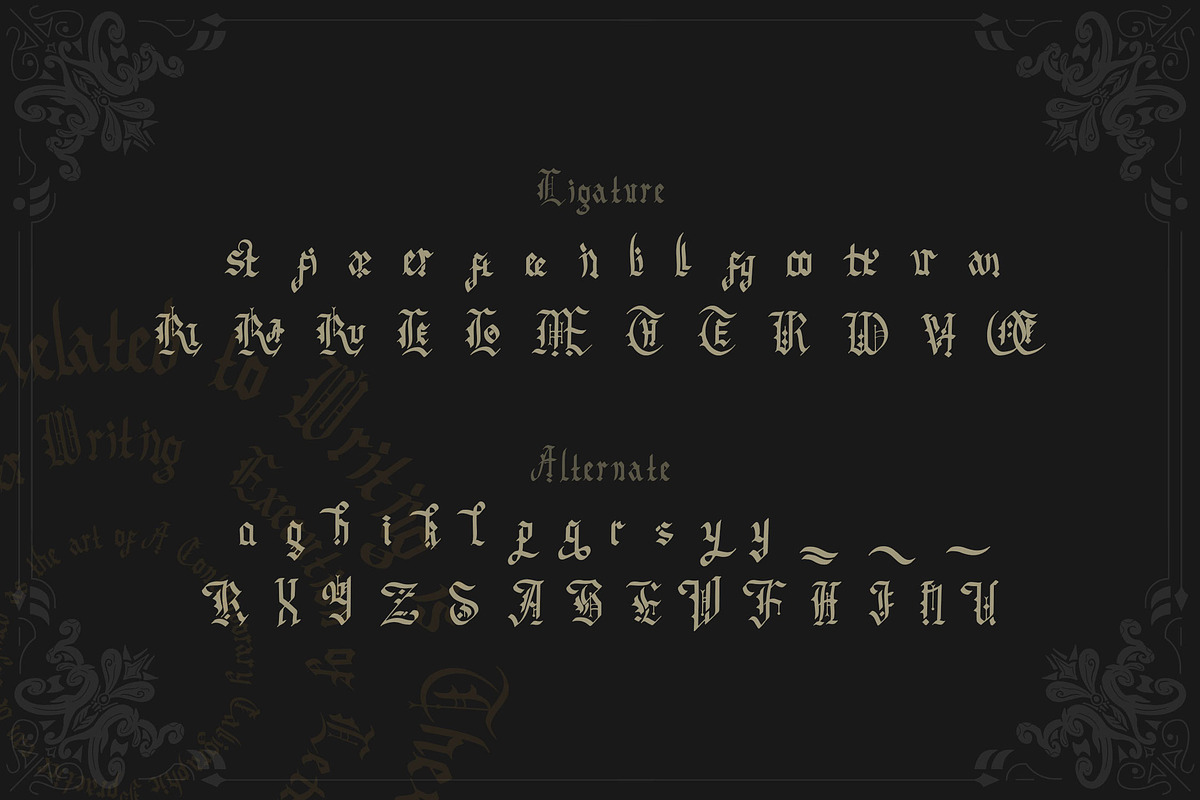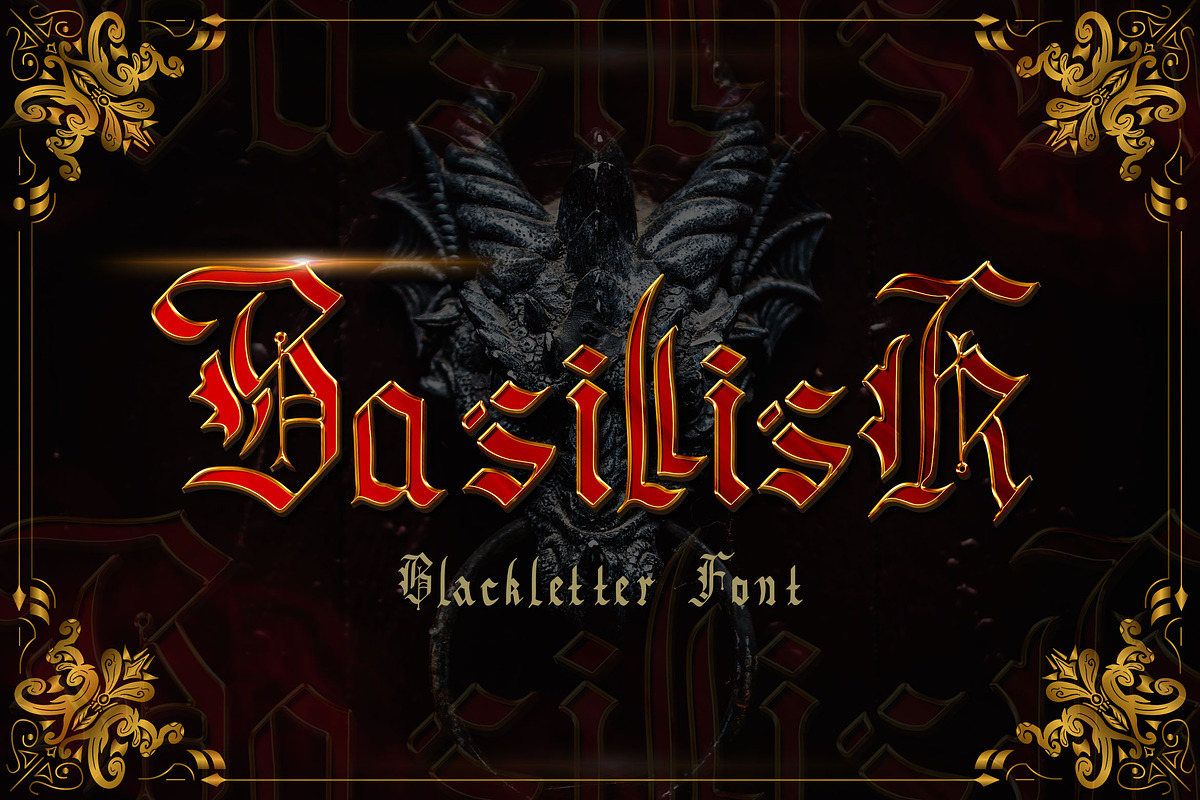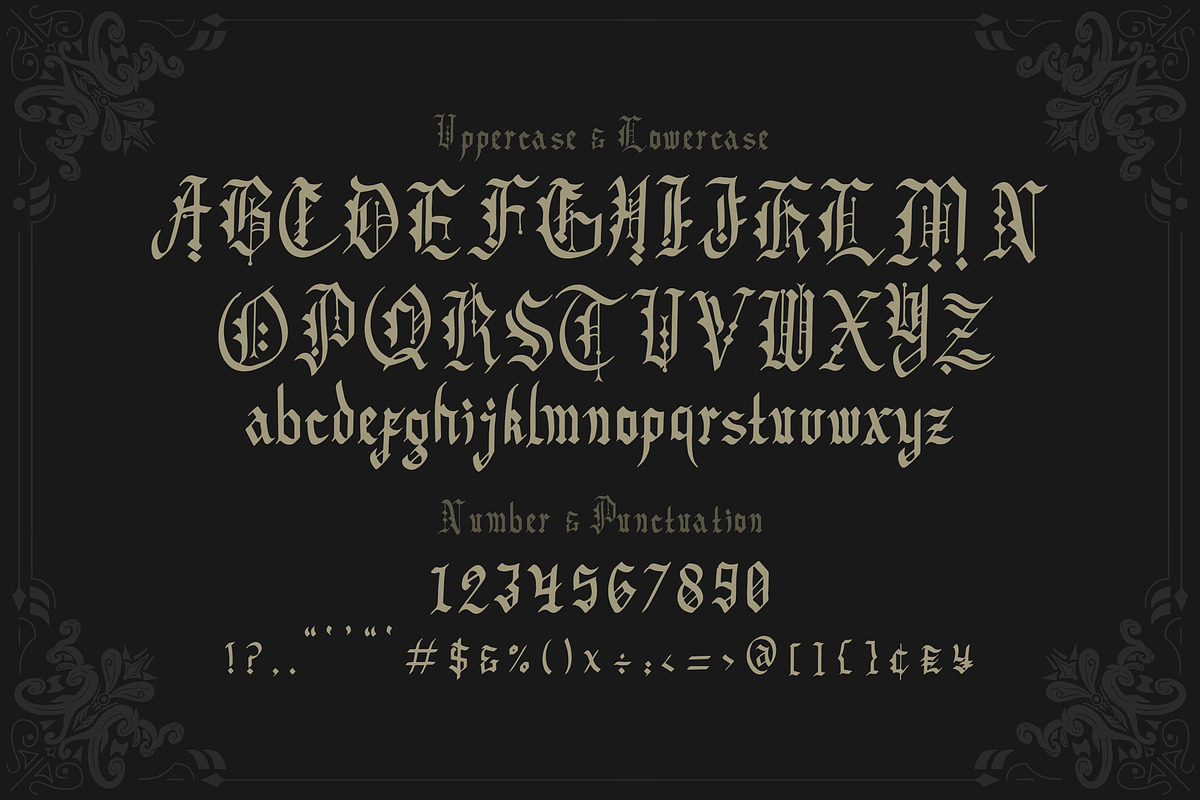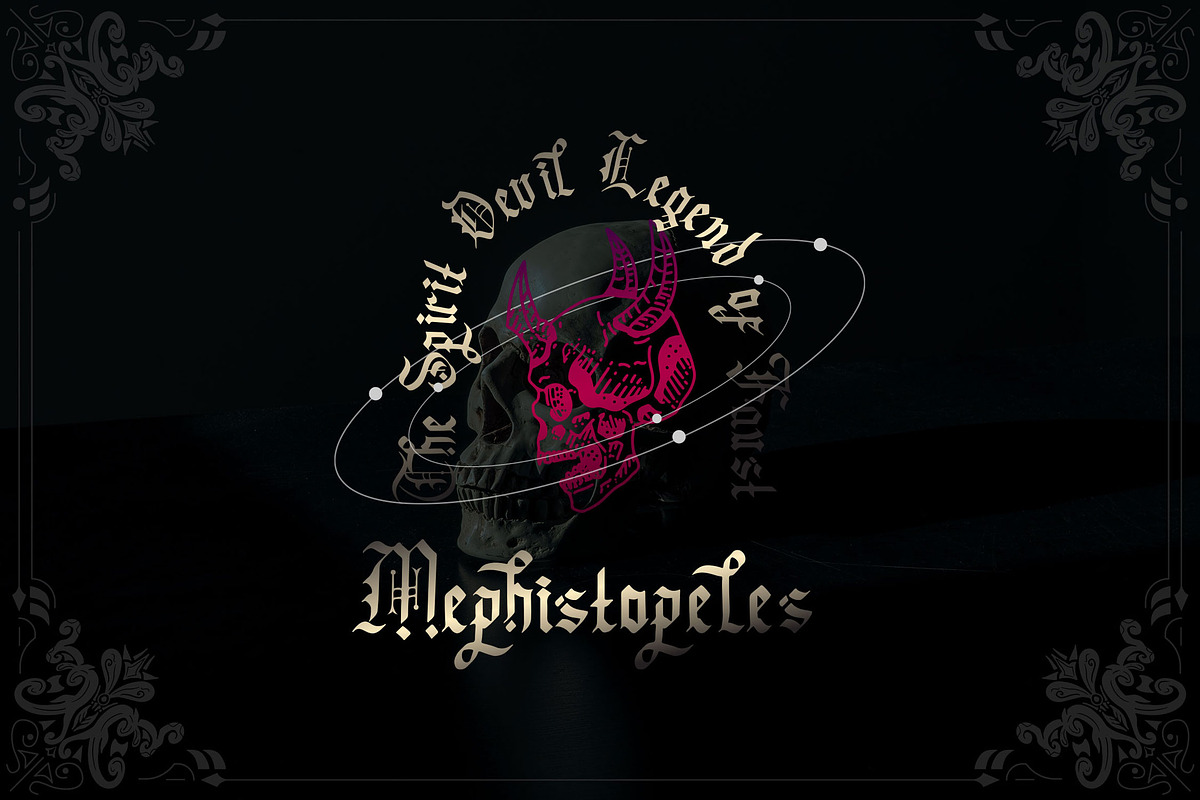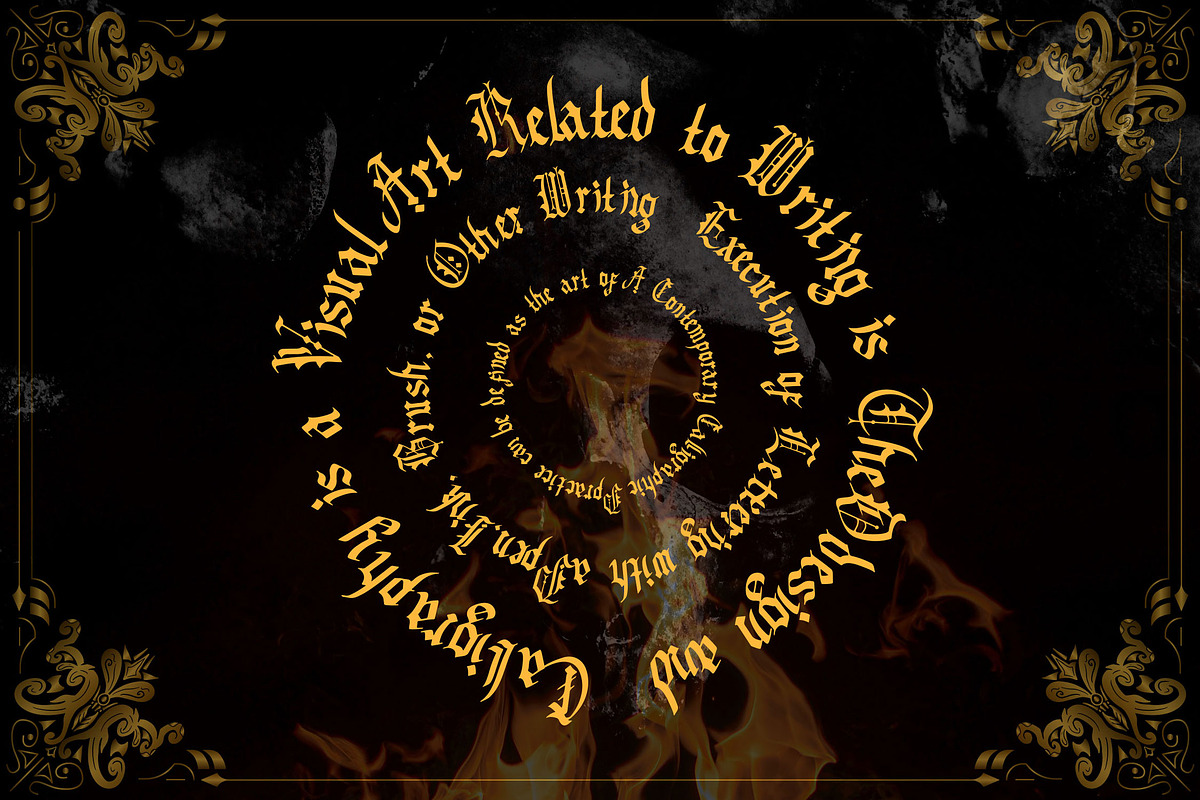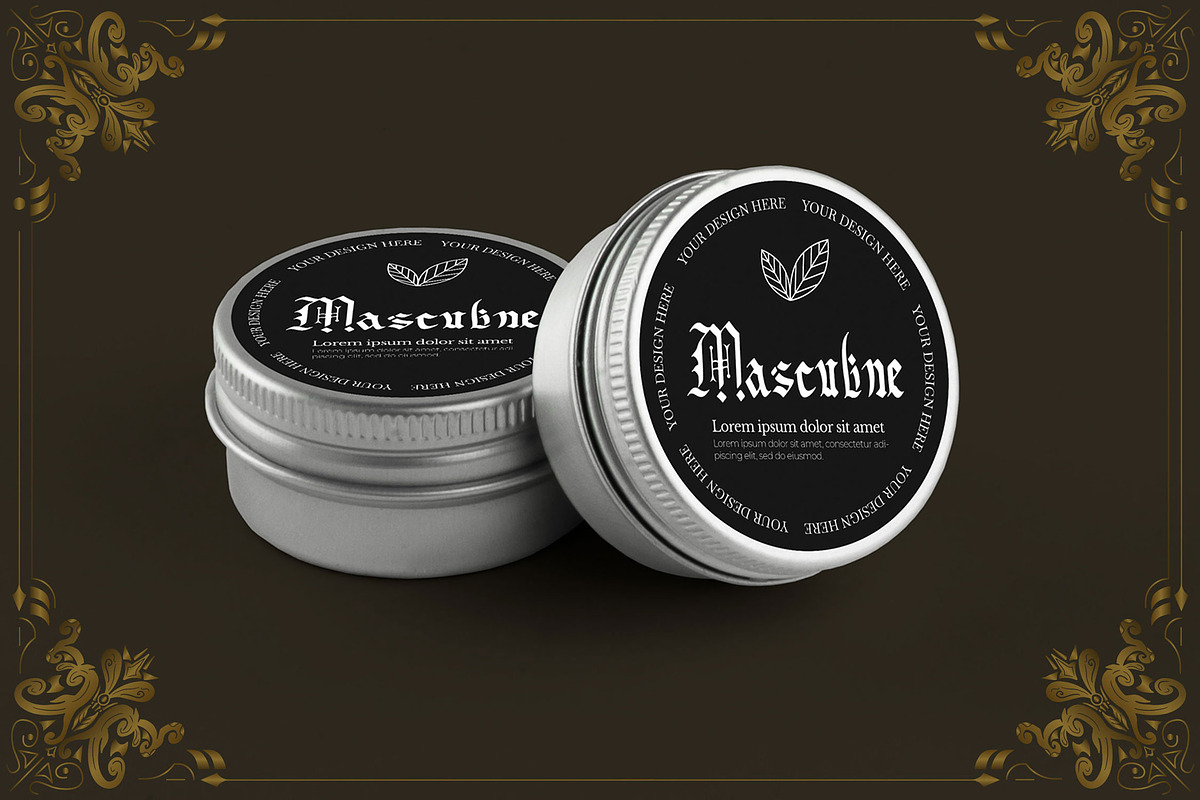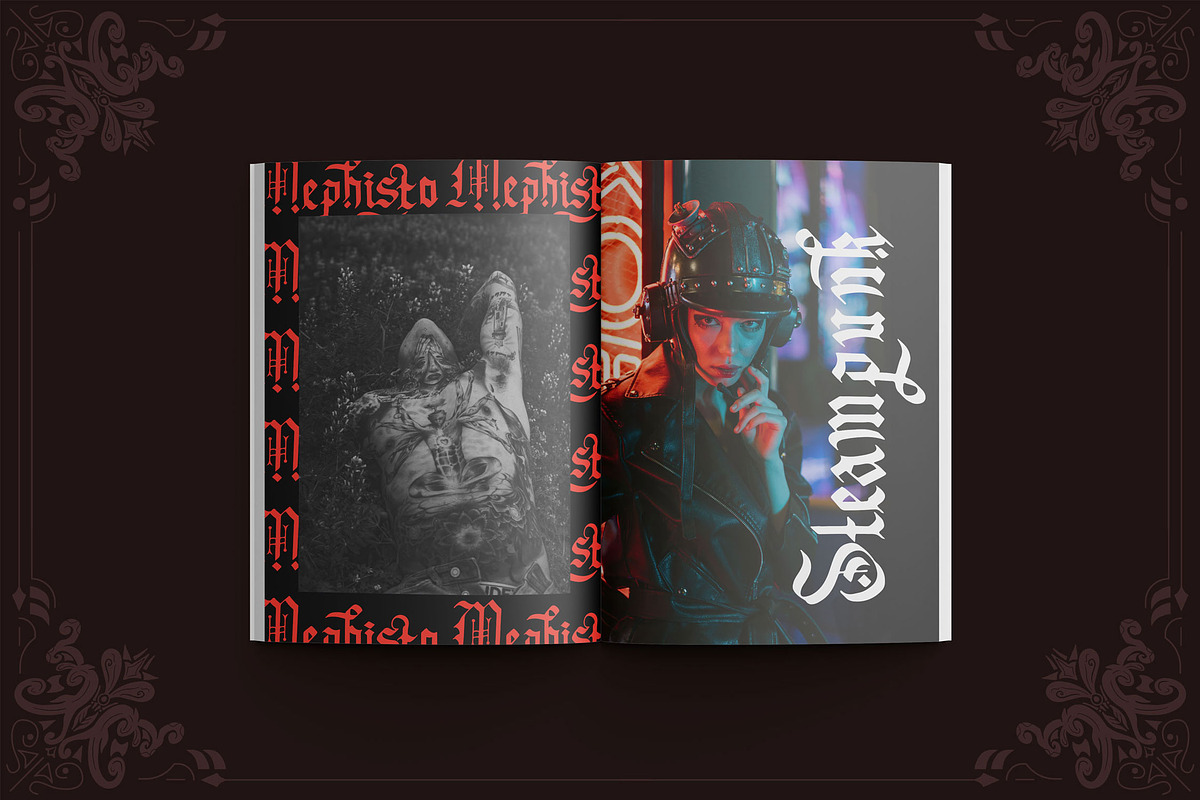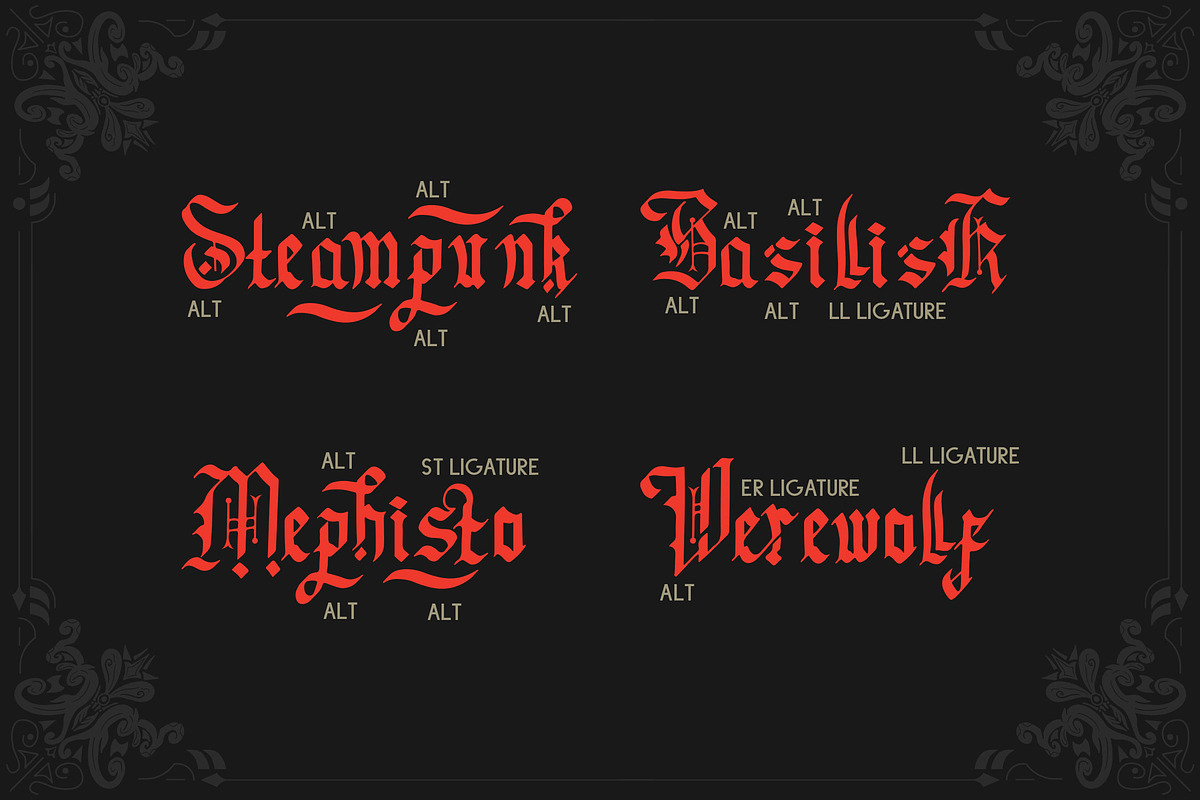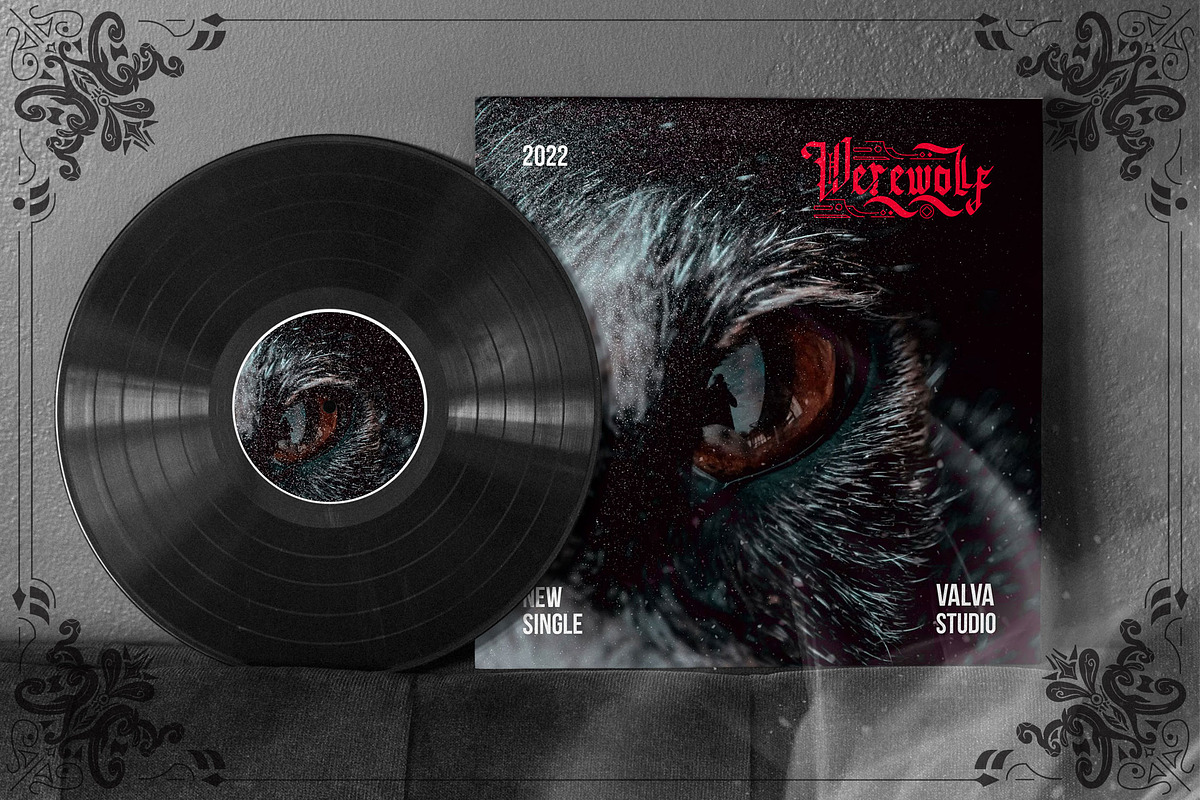
Basillisk - Blackletter Font
Introducing Basillisk, is a Blackletter Font has many purpose and suitable for retro, badges, logotype, fashion, tattoo, ornament, rock and roll, classic modern, advertising and much more.
- Available Ligatures and Alternates